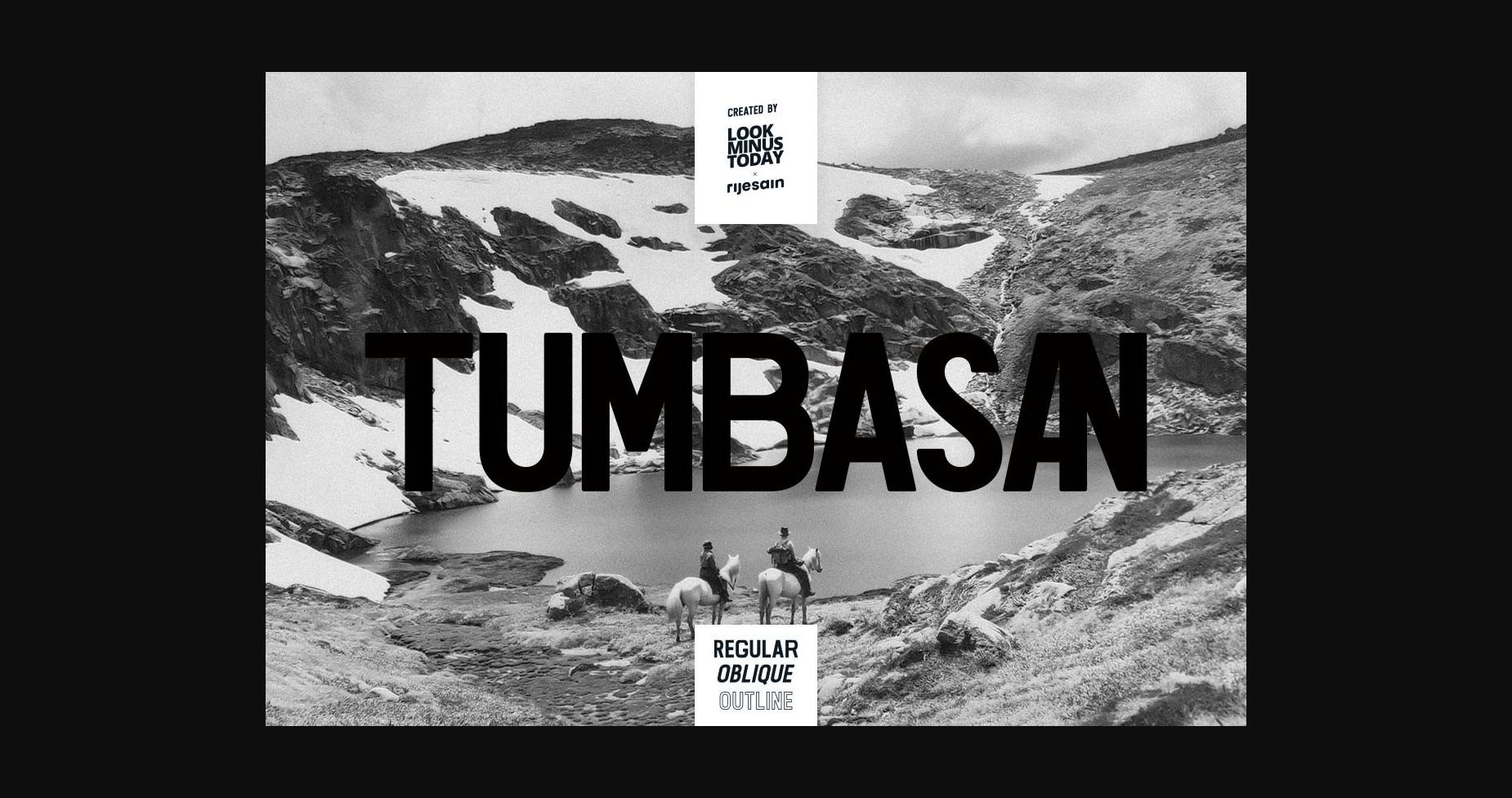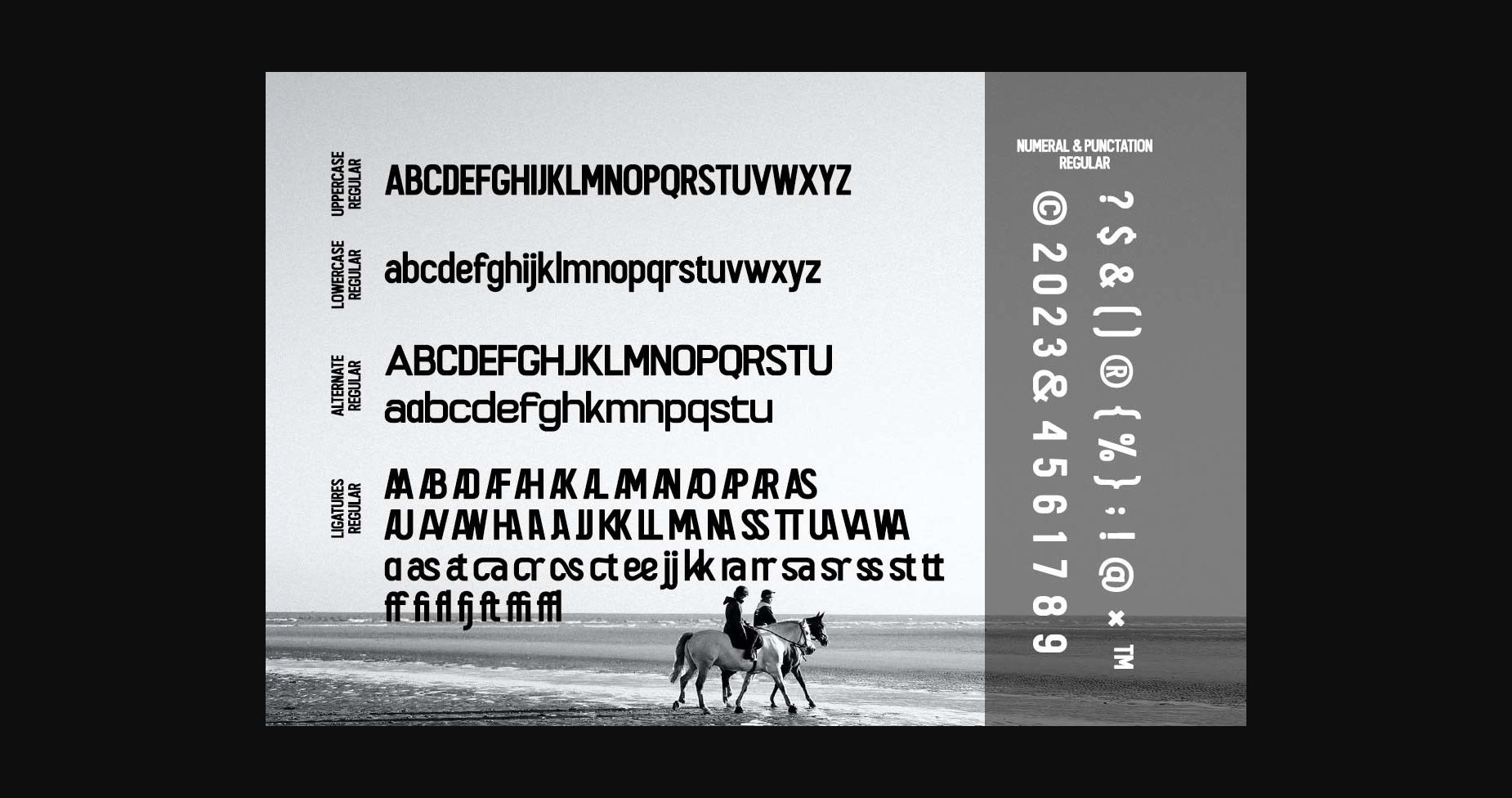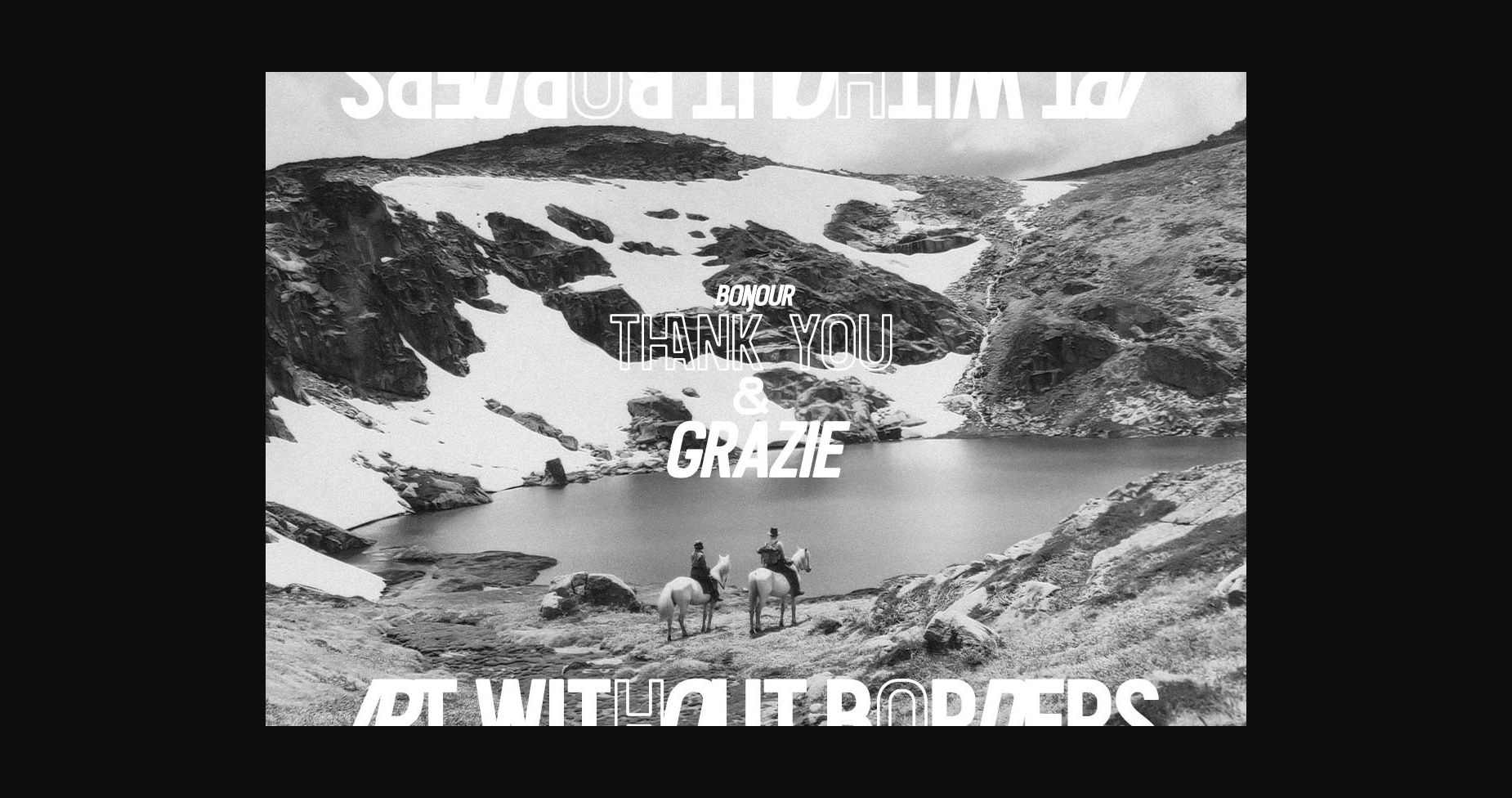
About Tumbasan Font
Tumbasan is a modern and minimalist sans-serif font that is perfect for creating a clean and contemporary look. Its sleek and simple design makes it versatile for a variety of design projects. The font features clear and sharp lines, giving it a professional and polished feel while still maintaining a sense of modernity.